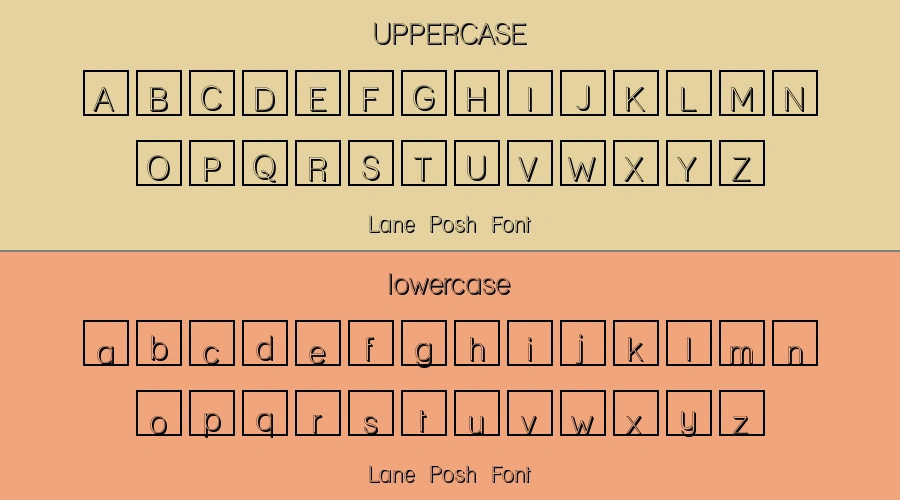
About Lane Posh Font
Lane Posh Font embodies typographic excellence through its masterful combination of architectural precision and durability. Created for newspaper text, this typeface delivers exceptional precision and manufacturing quality across all applications. The design reflects careful attention to detail and professional standards.
Advanced capabilities include distinctive assertive angles and versatile contextual ligatures, giving designers creative control. When used in regulatory documents, Lane Posh Font exhibits remarkable readability. The harmonious balance between corner treatment and standards alignment sets this typeface apart.